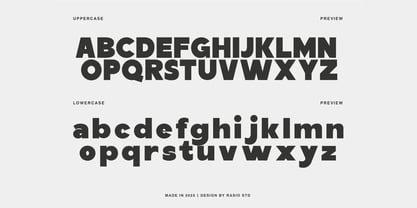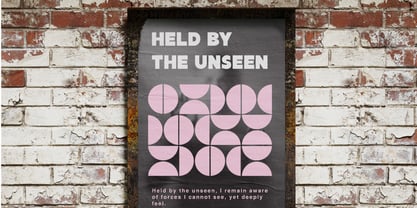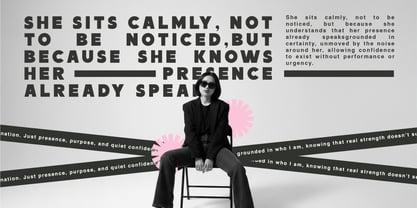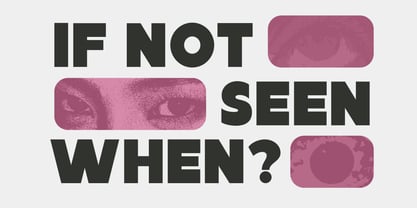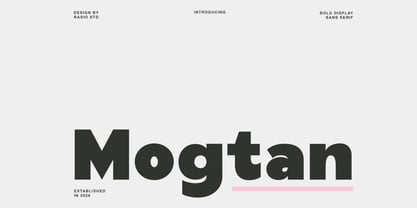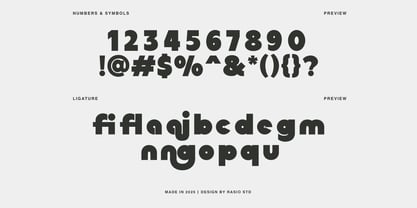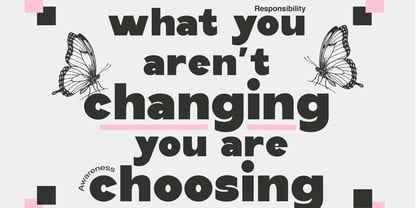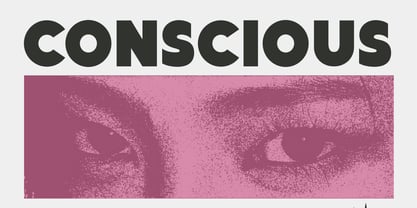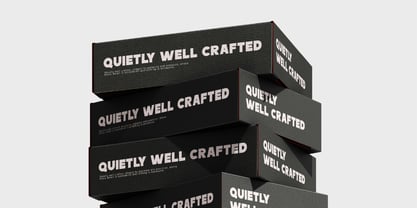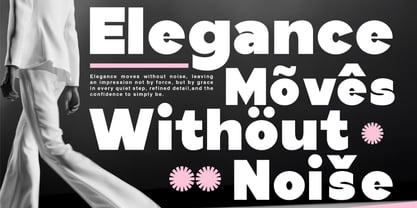
Mogtan
por Rasio Studio
La familia tipográfica Mogtan fue diseñada por Fajar Indra y publicada por Rasio Studio. Mogtan contiene 1 estilos. Más información sobre esta familia
Mogtan is a powerful bold sans serif typeface with high visual impact and playful curves. Designed to grab attention and elevate your typography, Mogtan is perfect for large-scale design needs such as posters, headlines, branding, logos, and packaging. Mogtan is ideal for projects that need bold presence with a modern twist. Use it for branding, editorial design, poster layouts, merchandise, packaging, or social media graphics. Its versatile structure balances fun and professionalism making it suitable for lifestyle brands, youth-focused campaigns.
Diseñadores: Fajar Indra
Fundición: Rasio Studio